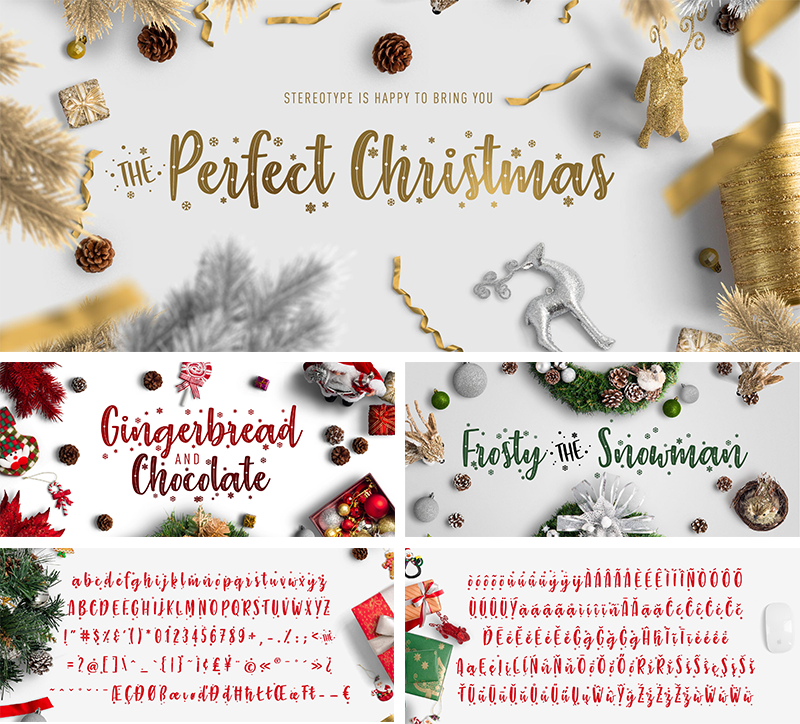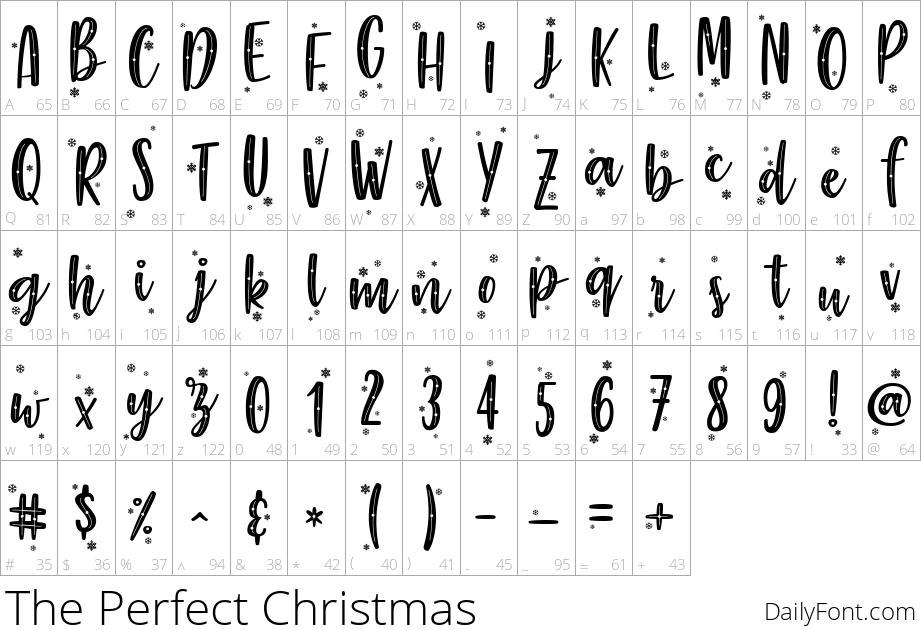
The Perfect Christmas
Playful script dotted with tiny hand-drawn snowflakes
The Perfect Christmas is a bouncy, hand-lettered script with a casual, handwritten warmth, dotted throughout with small snowflake accents above several letters for extra holiday charm. The uneven baseline and playful curves make it feel personal rather than mass-produced.
Use it for Christmas cards, gift tags and labels, holiday party invitations, or festive social media graphics that want a cozy, handwritten feel. Free to download for personal use.